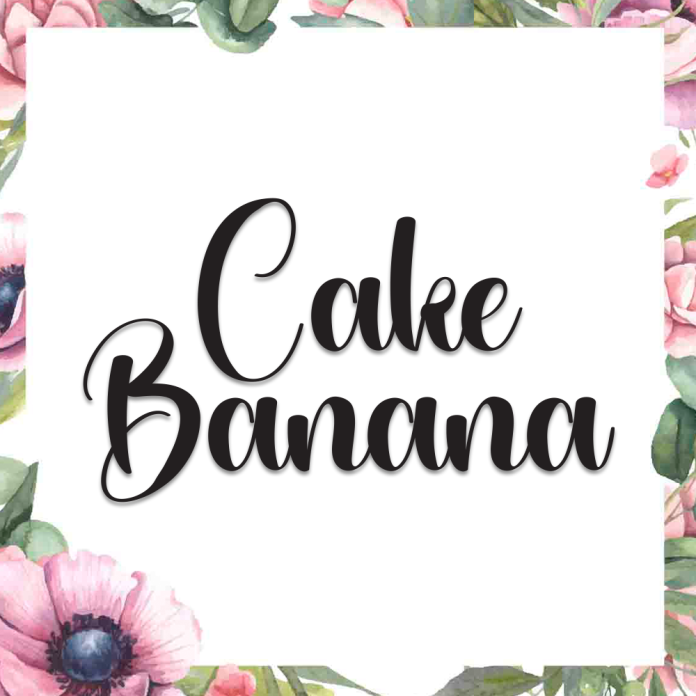
Cake Banana is a delightful handwriting font with a soft, bouncy feel that brings joy to every letter. Inspired by the charm of homemade treats and playful doodles, this font is perfect for fun, friendly, and heartwarming designs.
Great for bakery branding, kids’ products, greeting cards, invitations, social media, and lifestyle blogs, Cake Banana adds a touch of sweetness and personality to your creative projects.
Playful handwritten style with a cheerful vibe
Smooth, rounded letterforms that feel fun and approachable
Perfect for food, crafts, kids, and cheerful branding
Add a sprinkle of joy to your designs with Cake Banana — the handwriting font that’s as sweet as it sounds!